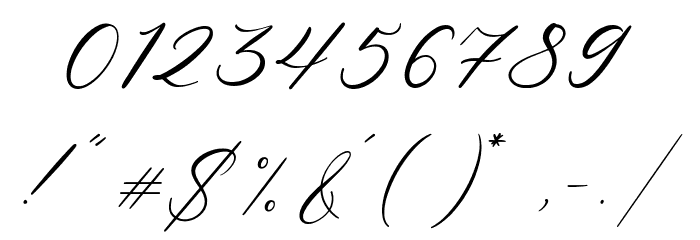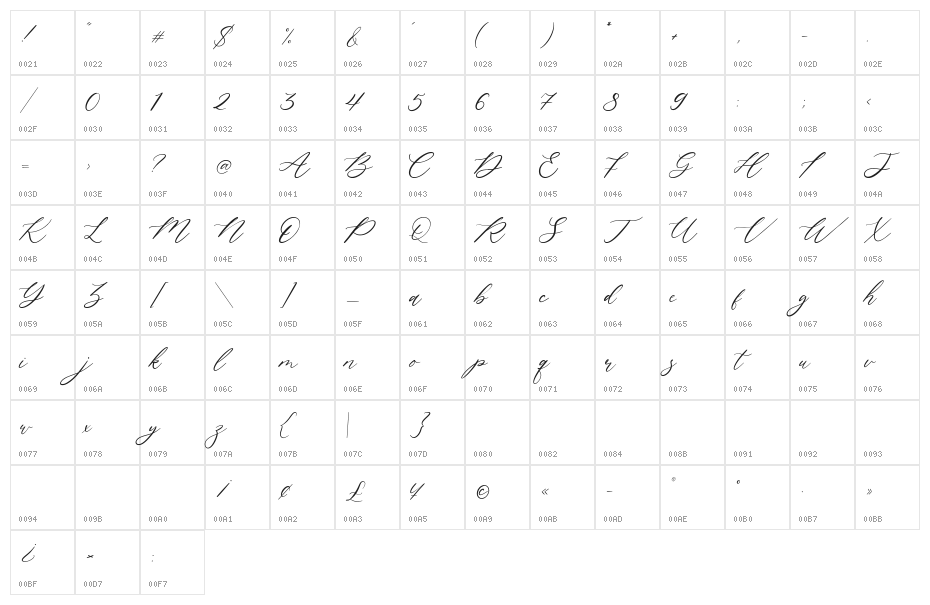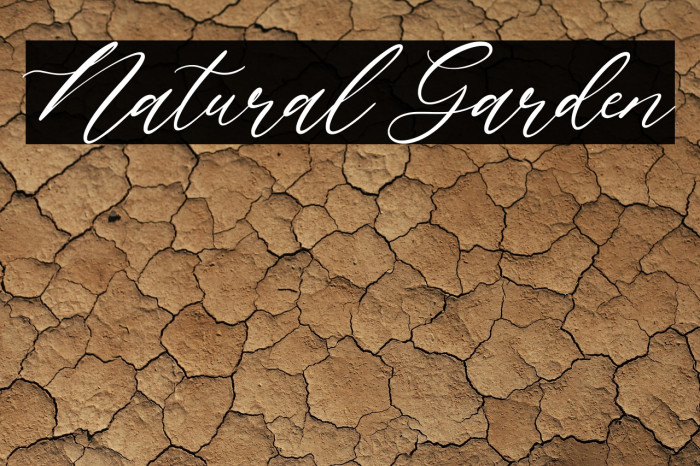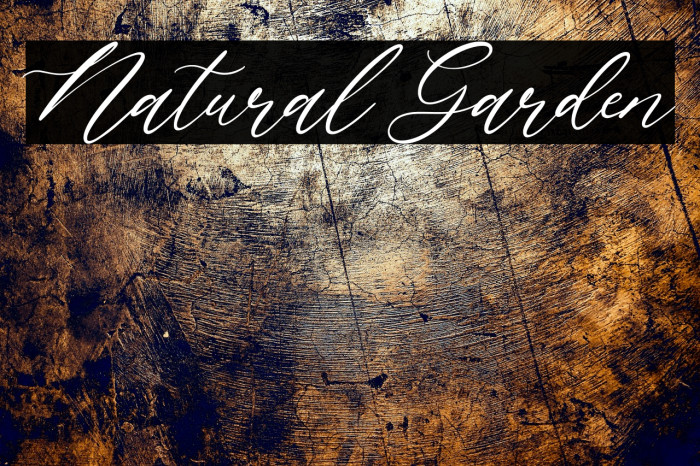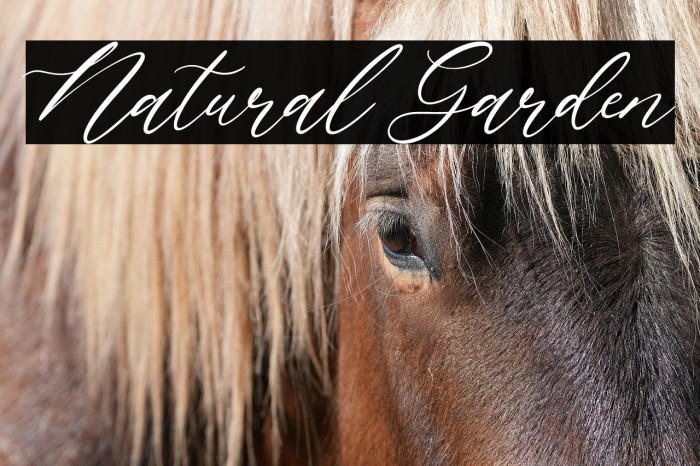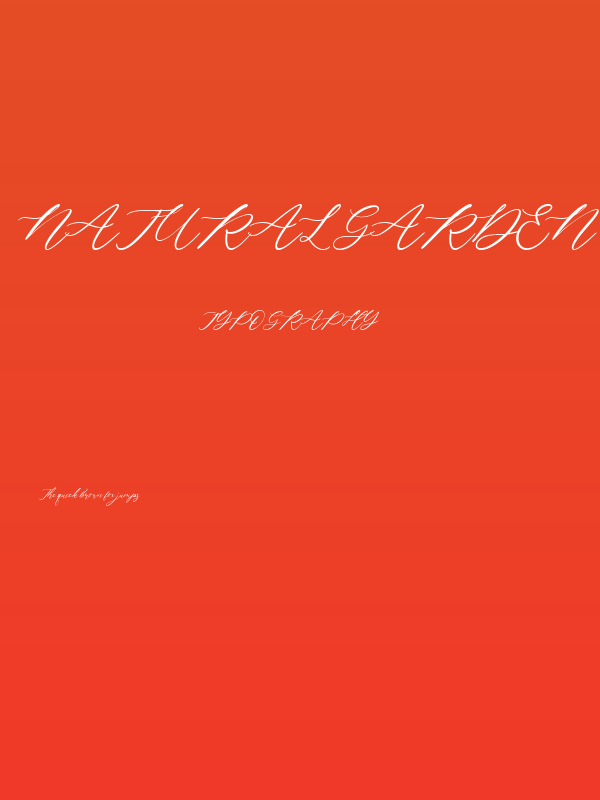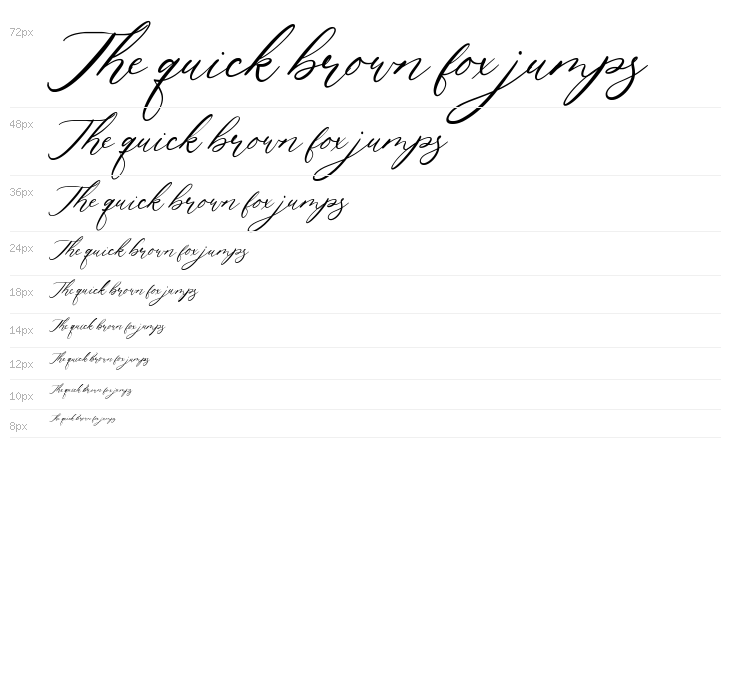
Natural Garden Font
Natural Garden Description
This elegant script font exudes a sense of fluidity and grace, characterized by its flowing, cursive letterforms. The strokes are smooth and connected, giving it a handwritten appearance that is both sophisticated and approachable. The uppercase letters are slightly more elaborate, with sweeping curves and loops that add a touch of flair. The lowercase letters maintain a consistent rhythm, enhancing readability while preserving the font's artistic style. The numerals and special characters are designed to complement the alphabet, maintaining the same flowing aesthetic. This font is ideal for projects that require a personal touch, such as invitations, greeting cards, or branding materials.
| Use Case | Invitations, Greeting cards, Branding |
| Proposed Projects | Ideal for wedding invitations, greeting cards, personal branding, and elegant packaging designs. |